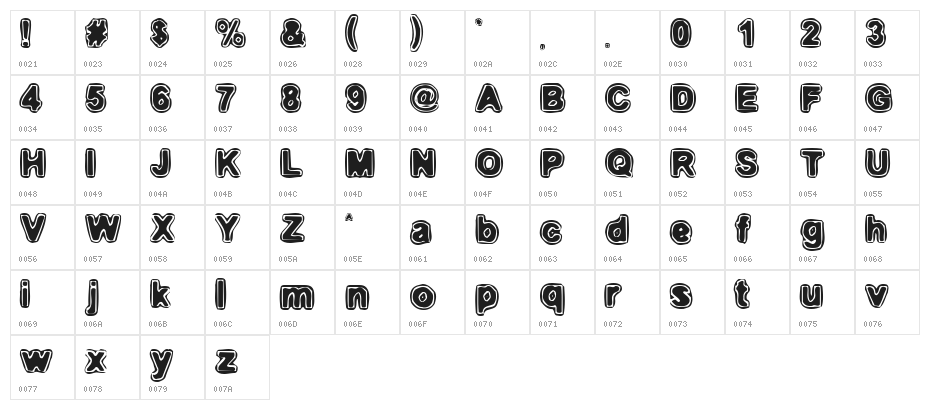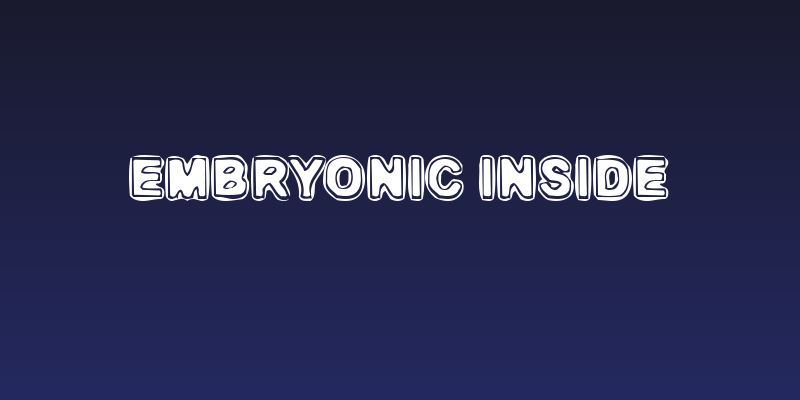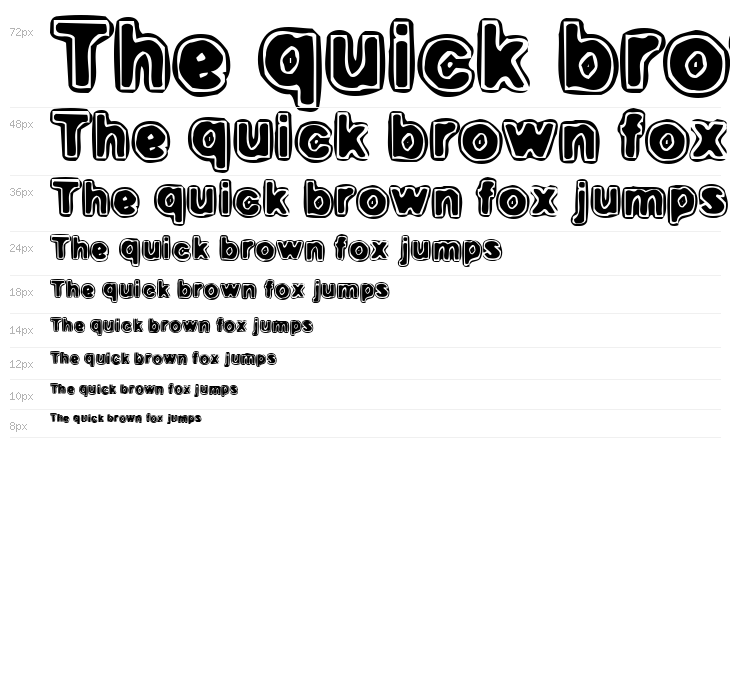
Embryonic Inside Font
Embryonic Inside Description
This font features a bold, playful design with thick, rounded edges and a distinct outline that gives each character a bubble-like appearance. The letters are uniformly bold, creating a strong visual impact. The style is reminiscent of graffiti or comic book lettering, making it ideal for projects that require a fun and energetic vibe. The characters are well-spaced, ensuring readability despite their decorative nature. The font includes a full set of uppercase and lowercase letters, numbers, and a variety of special characters, making it versatile for different design needs.
| Overall Style | Playful, Comic |
| Proposed Projects | Ideal for children's books, comic strips, playful branding, and event posters. |